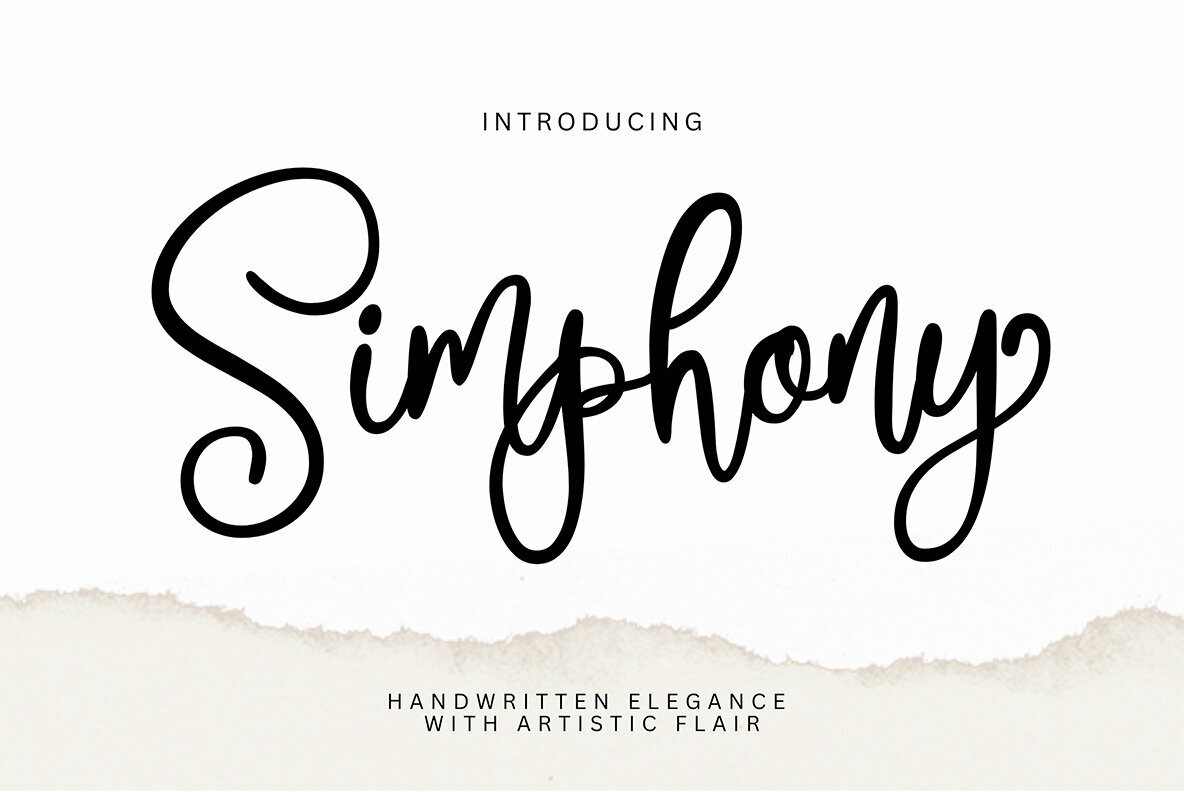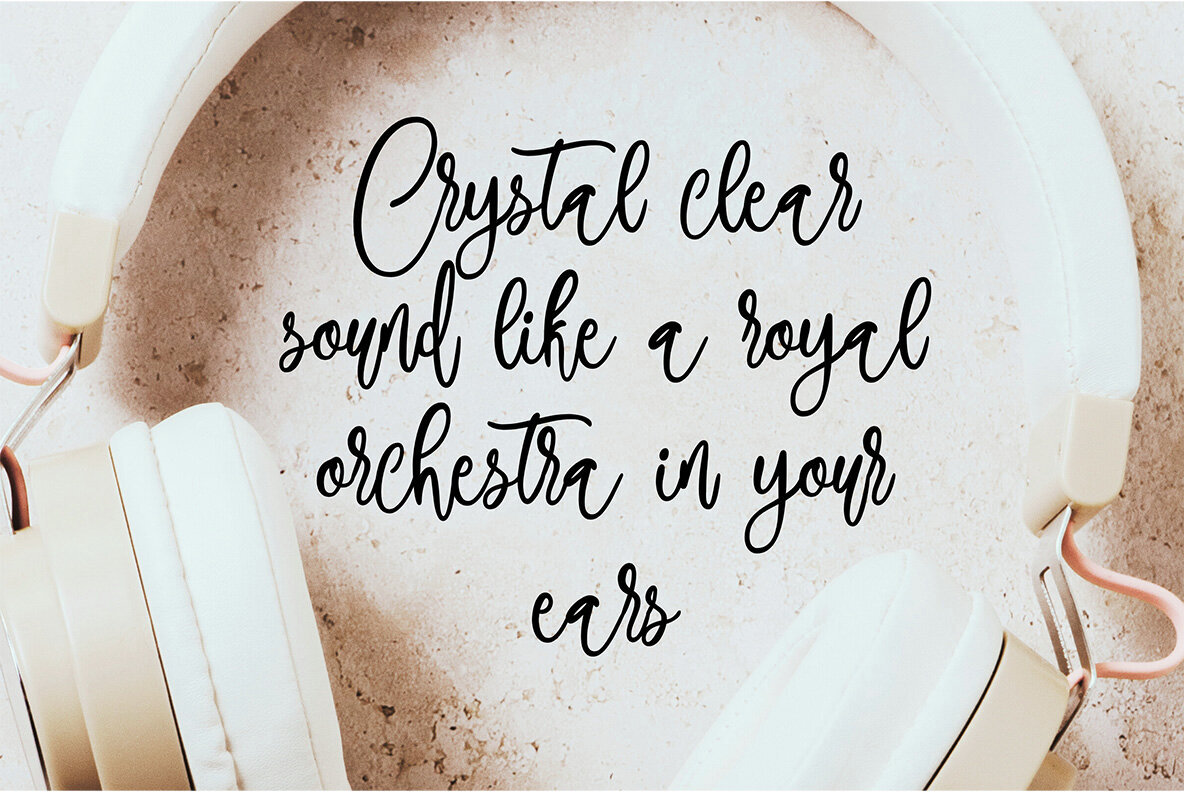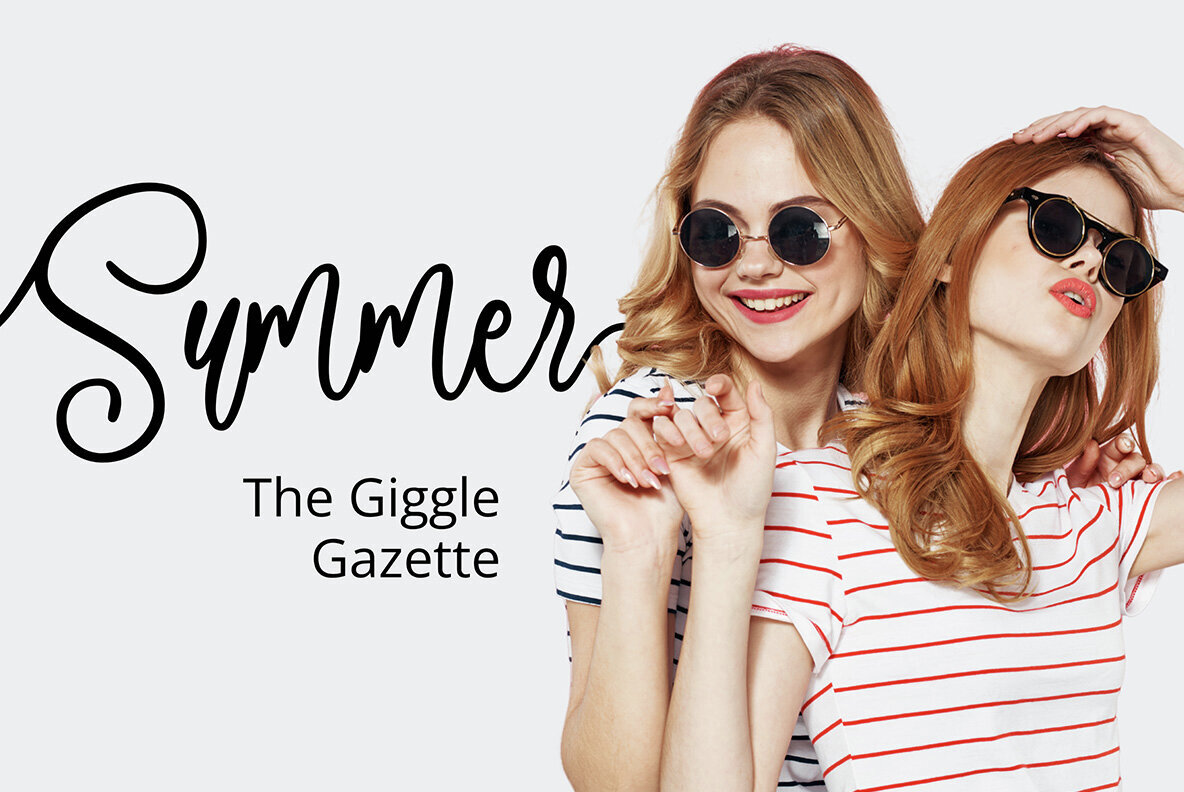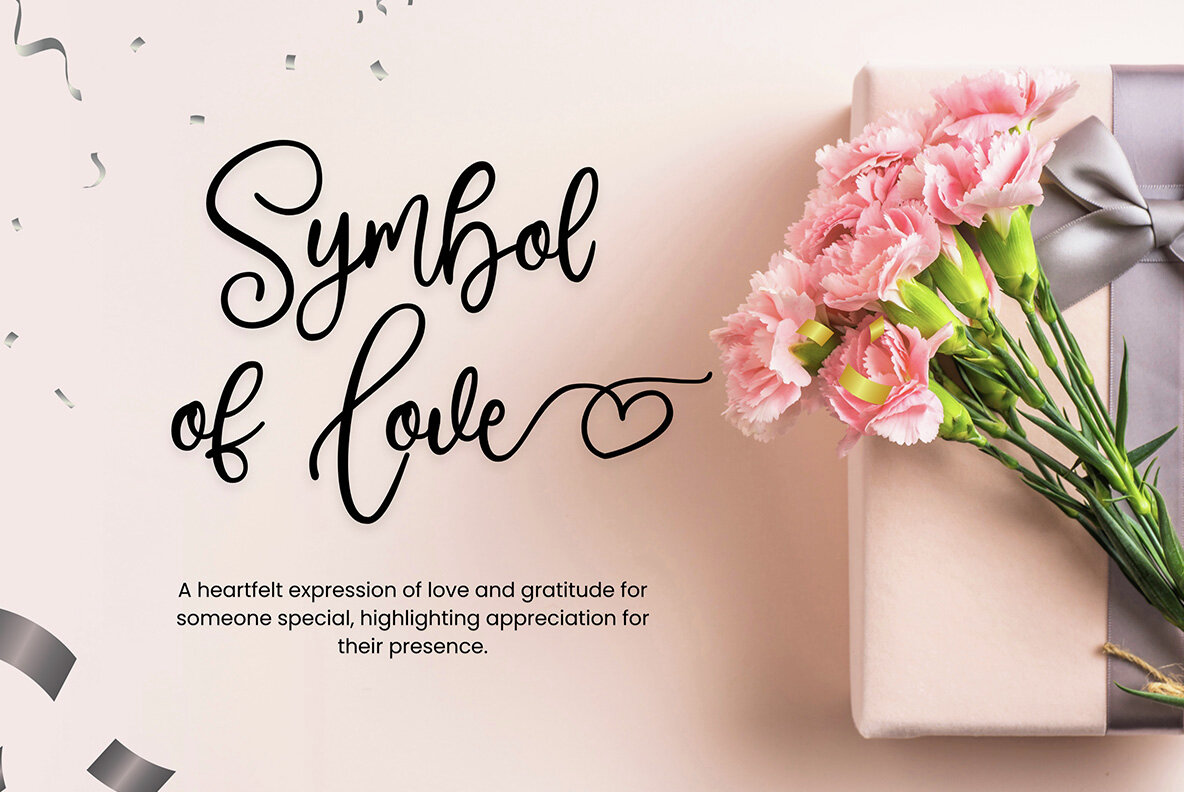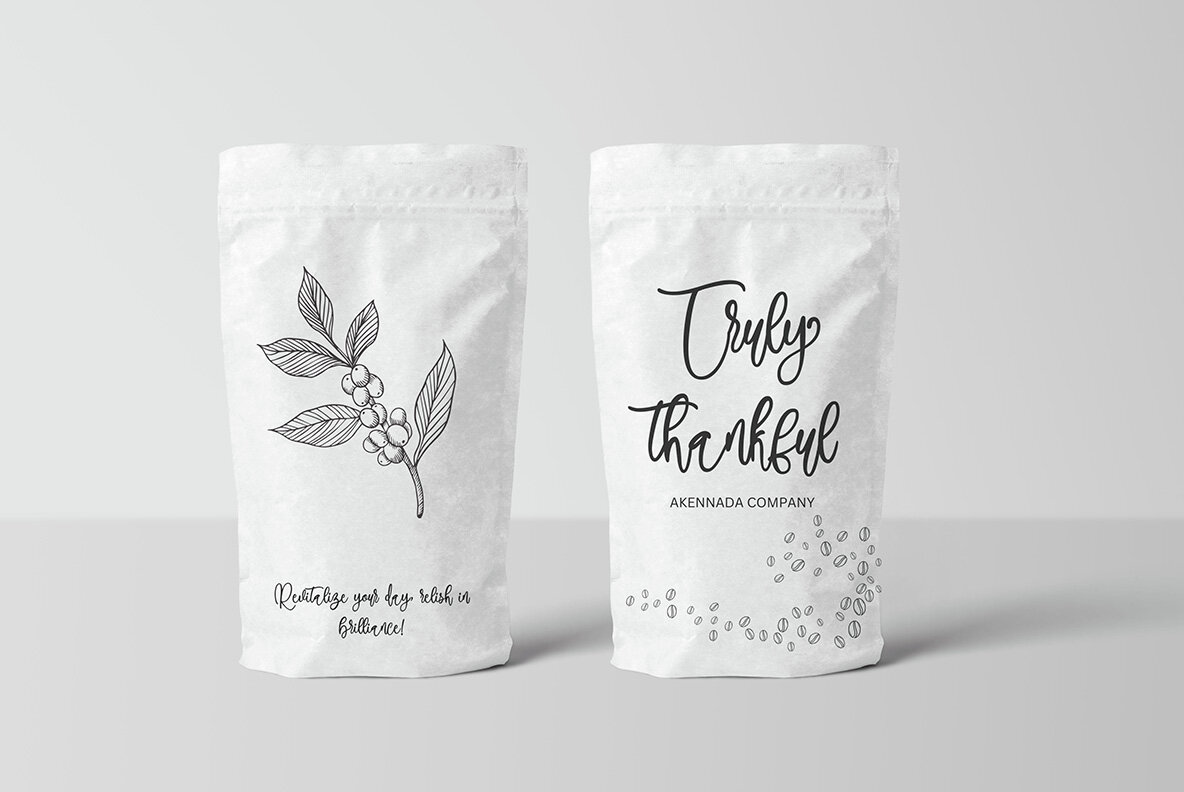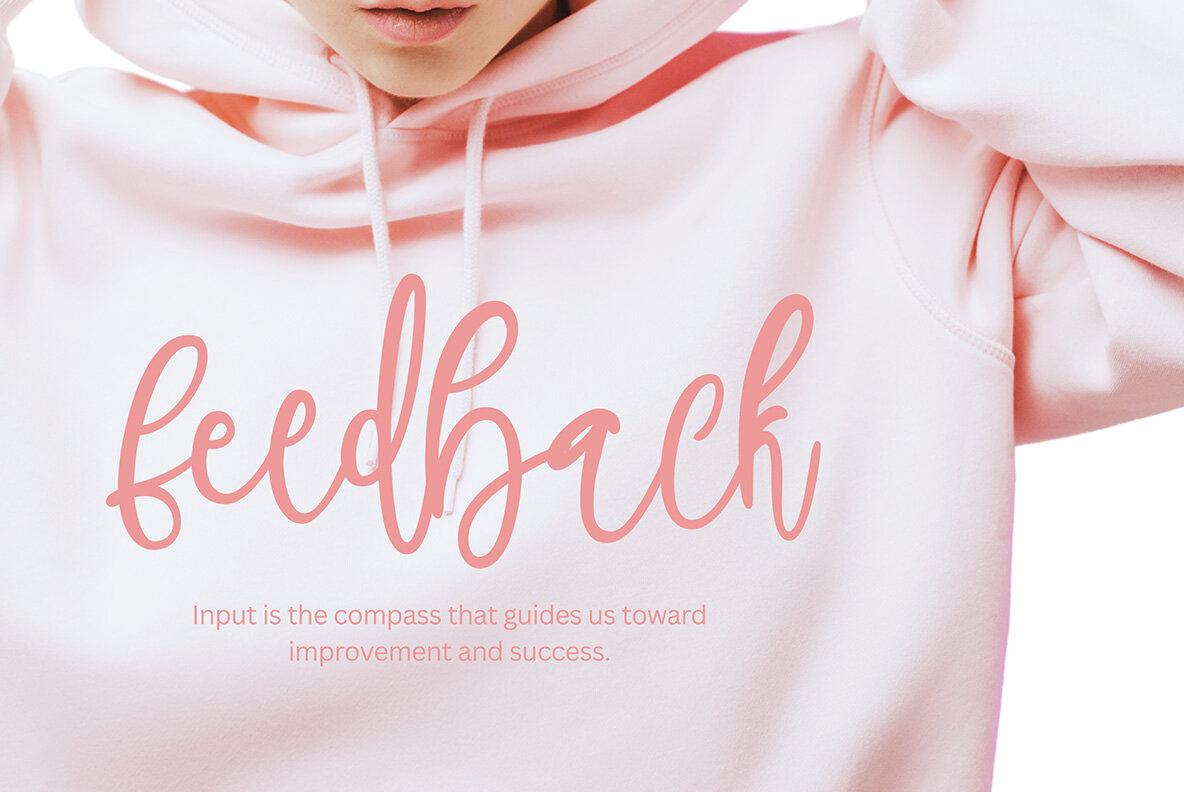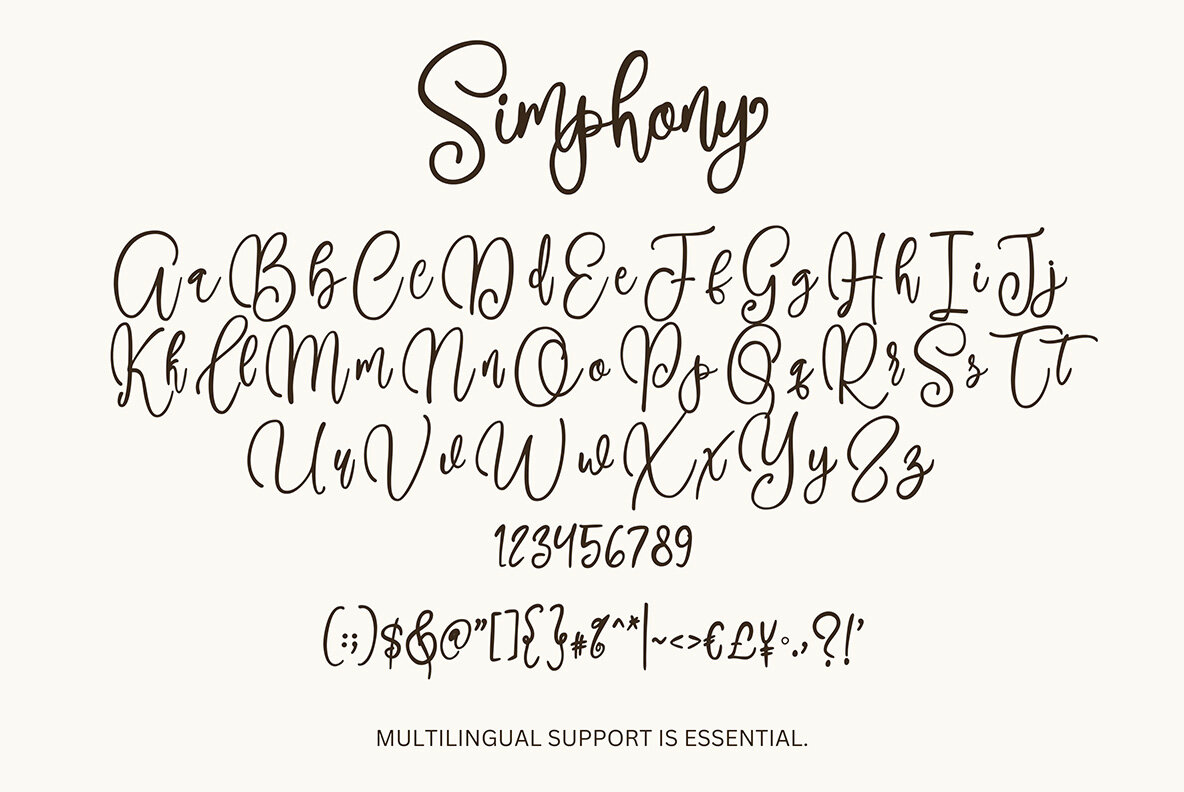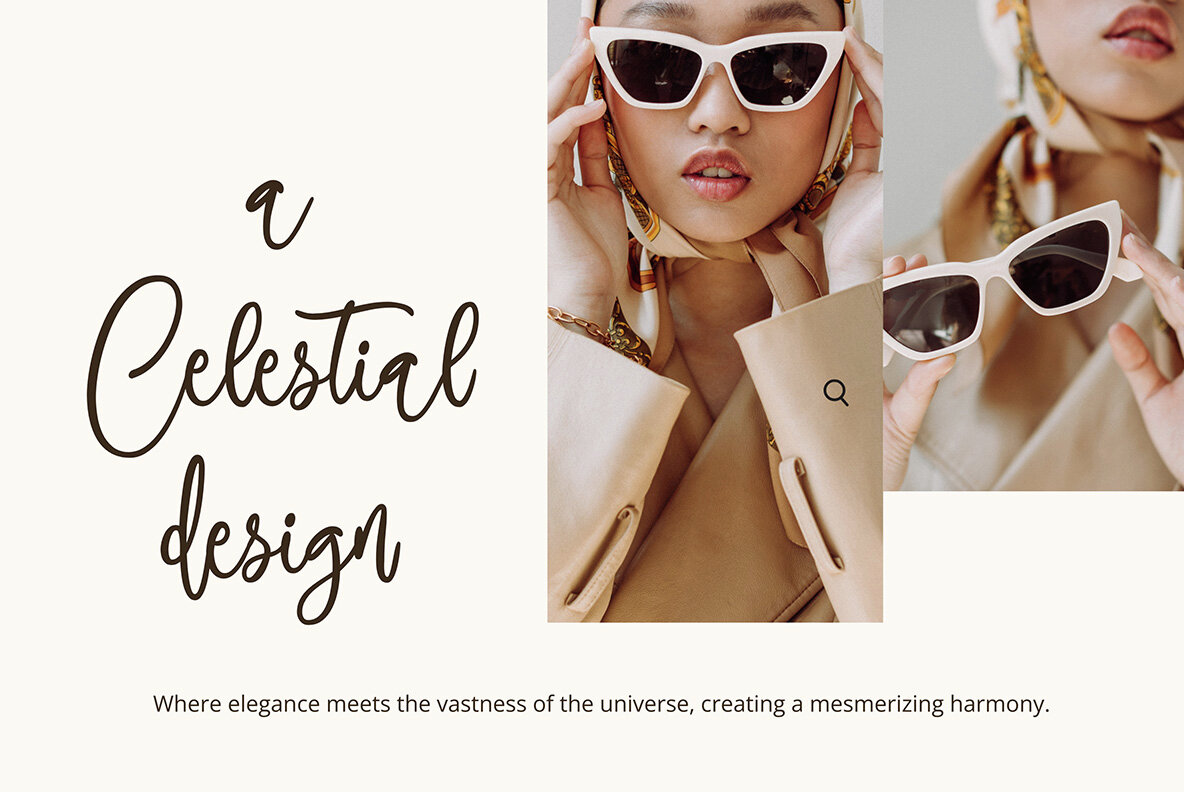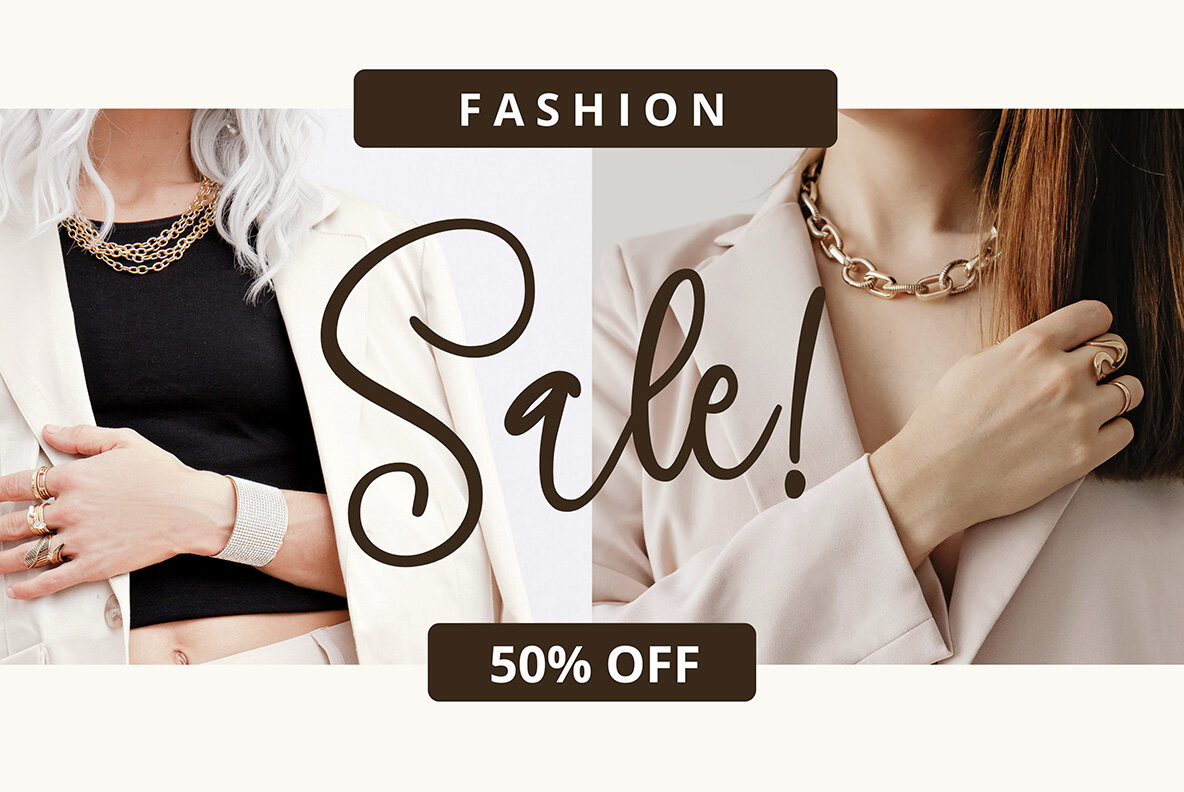
Simphony Font
Simphony is a modern handwritten font that brings a touch of classic elegance to any project. Perfect for invitations, logos, quotes, and packaging, this font offers a graceful and personal feel infused with an artistic flair. The beauty of Simphony lies in its ability to convey clarity and expression, much like its namesake.Simphony: A Handwritten Elegance